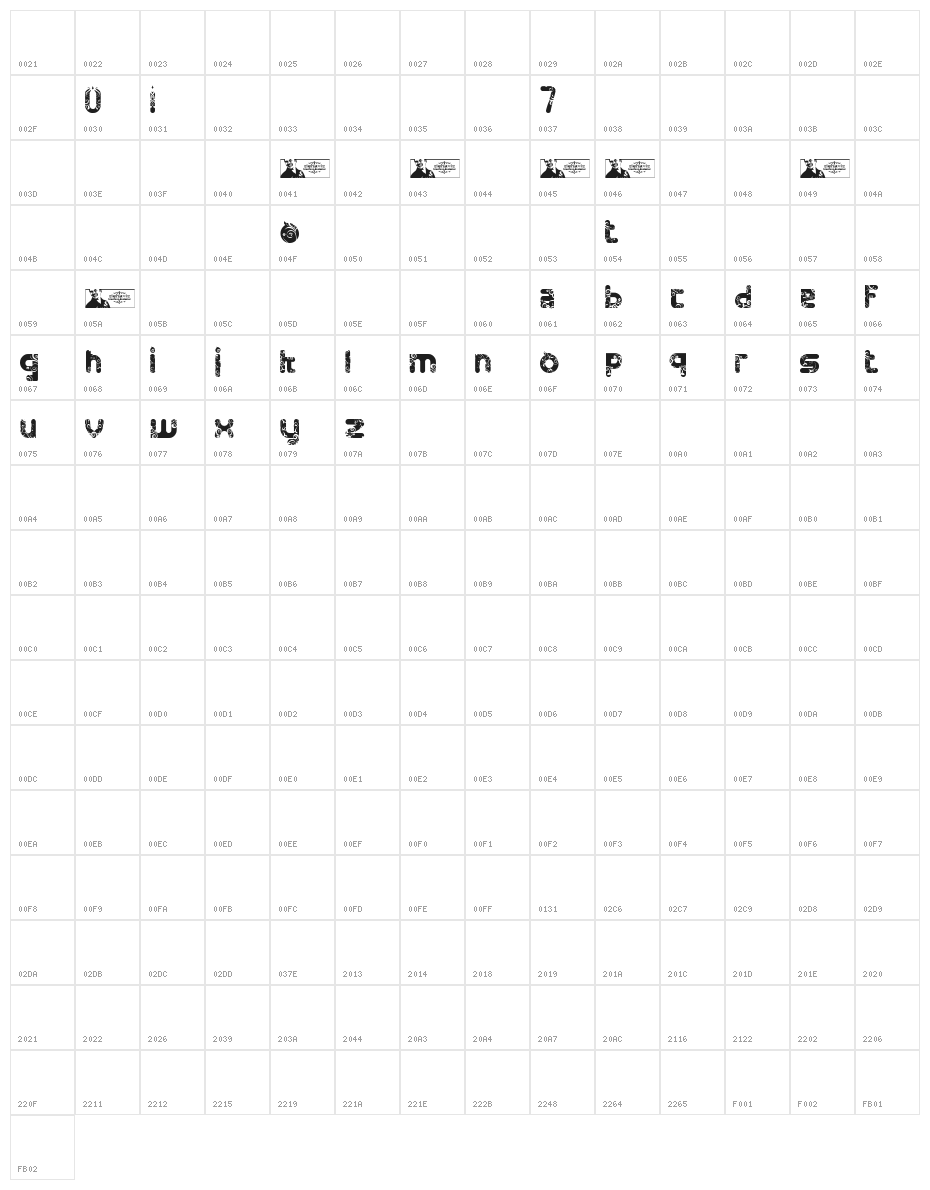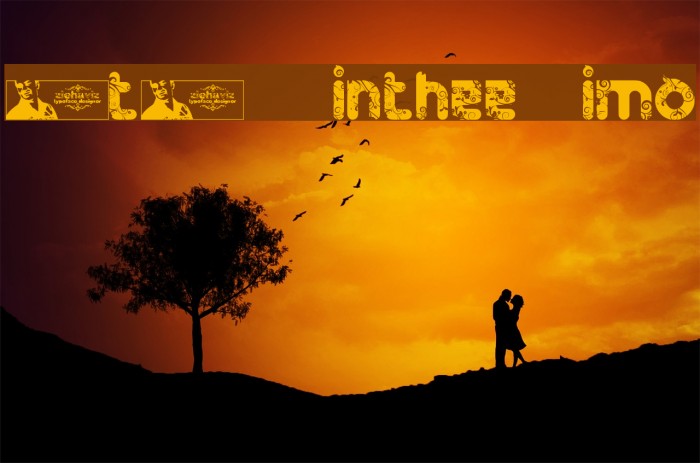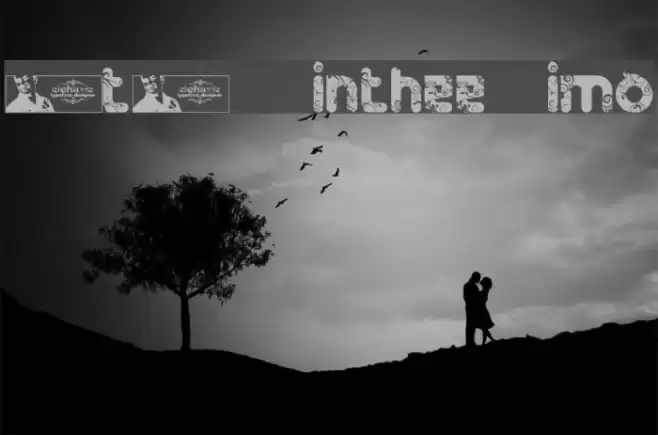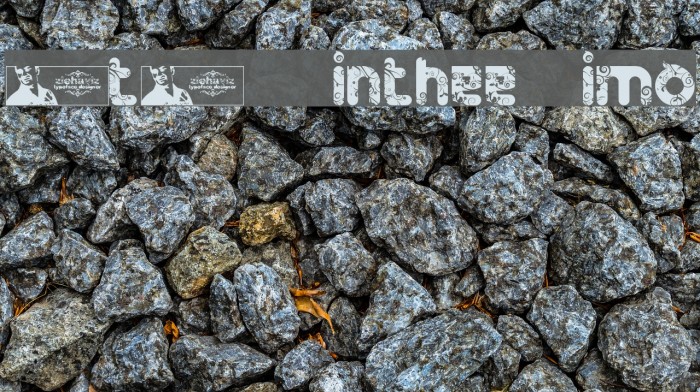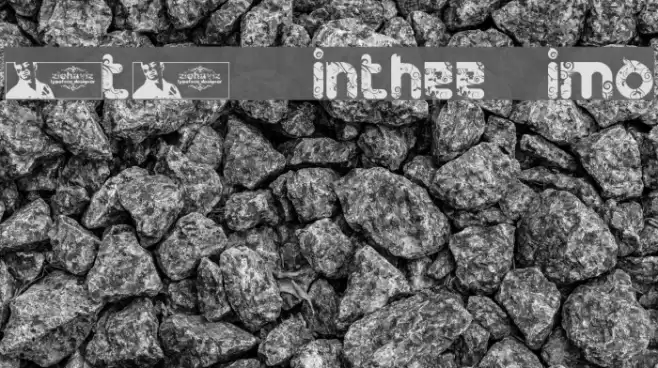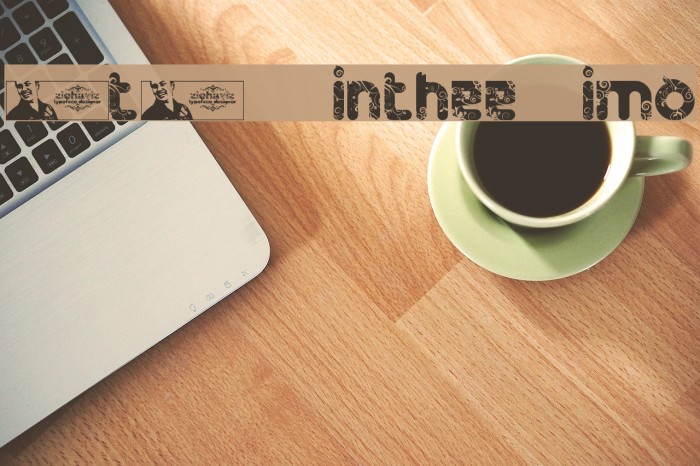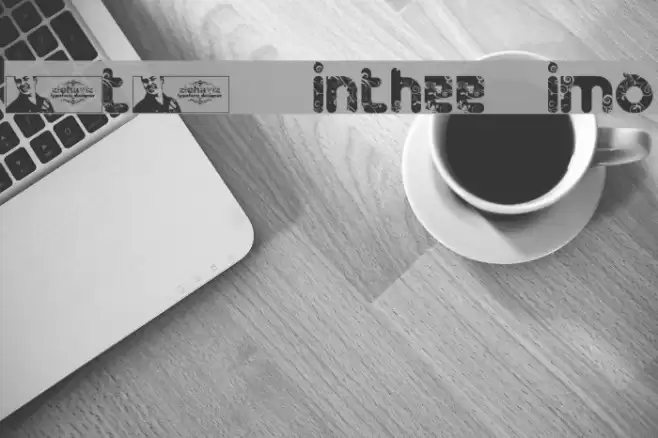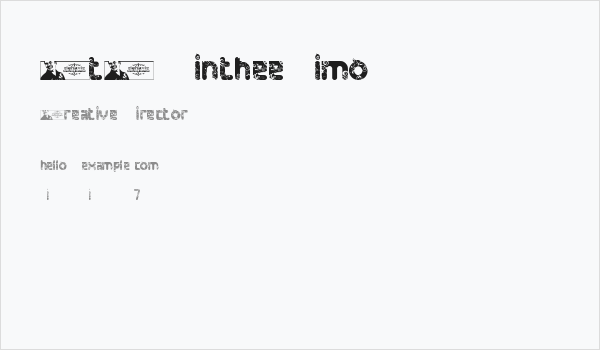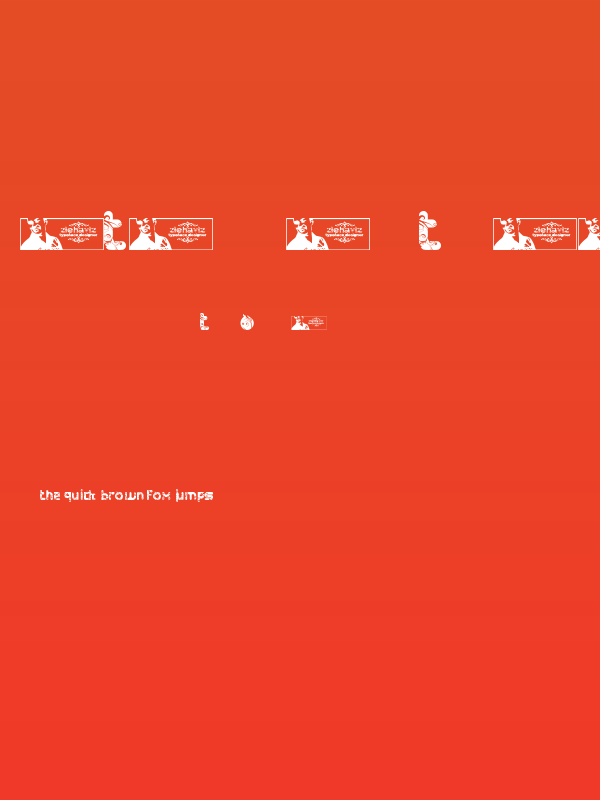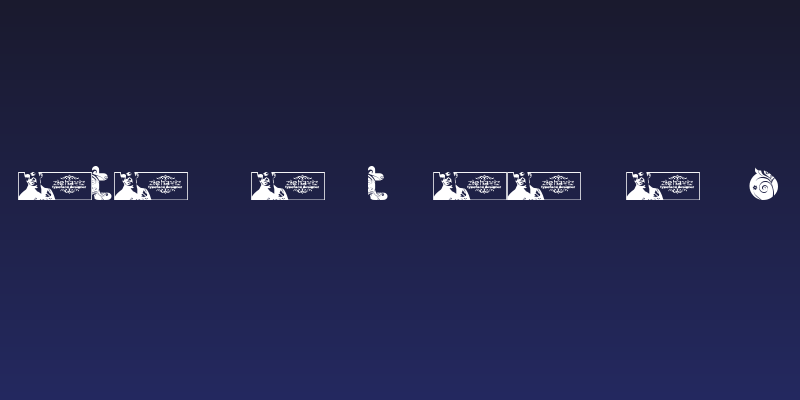
FTF Minthee Limo Font
FTF Minthee Limo Description
This font features an intricate and decorative design, with each character adorned with floral and swirl patterns. The letters are bold and have a whimsical, artistic flair, making them stand out with their unique embellishments. The style is playful yet elegant, suitable for creative projects that require a touch of sophistication and creativity. The characters are well-defined, with a consistent decorative theme throughout, adding a sense of cohesion and style.
| Proposed Projects | Ideal for wedding invitations, greeting cards, artistic posters, and branding materials that require a decorative and elegant touch. |